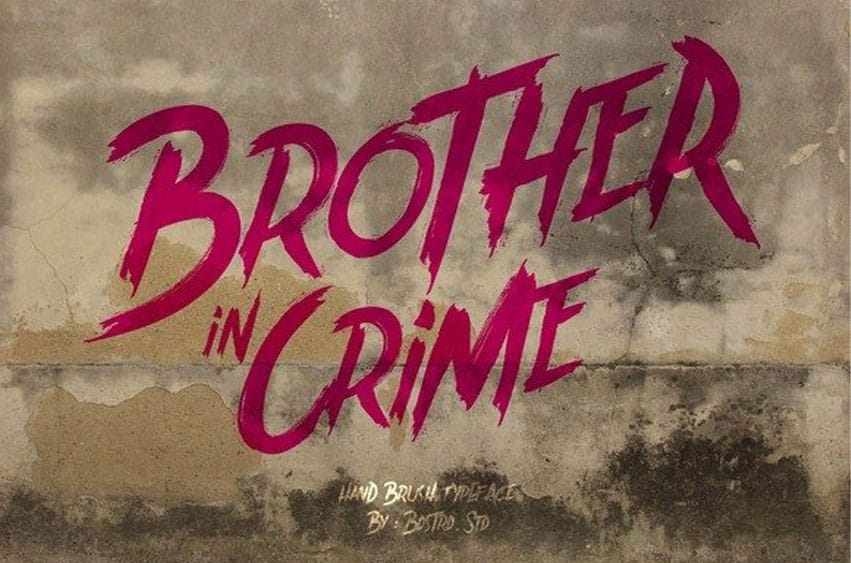
Brother in Crime Font is a brush typeface. It’s inspired by graffiti written on the walls in the slums of Bandung, Indonesia.
Because the designer stayed true to the original art it’s a type with a rough feel.